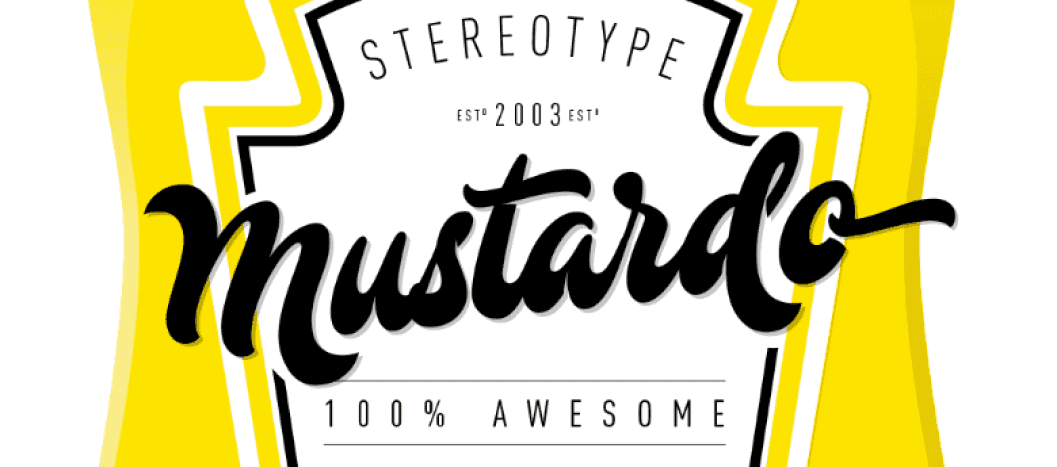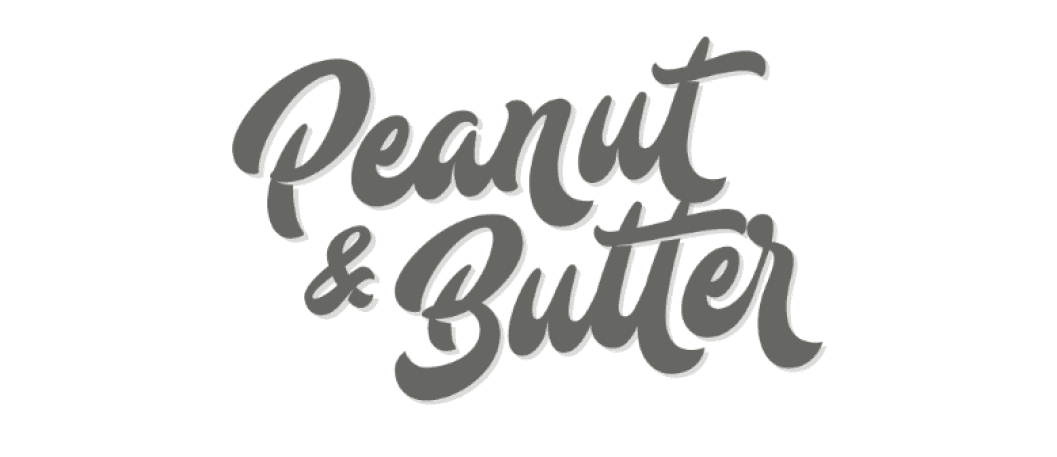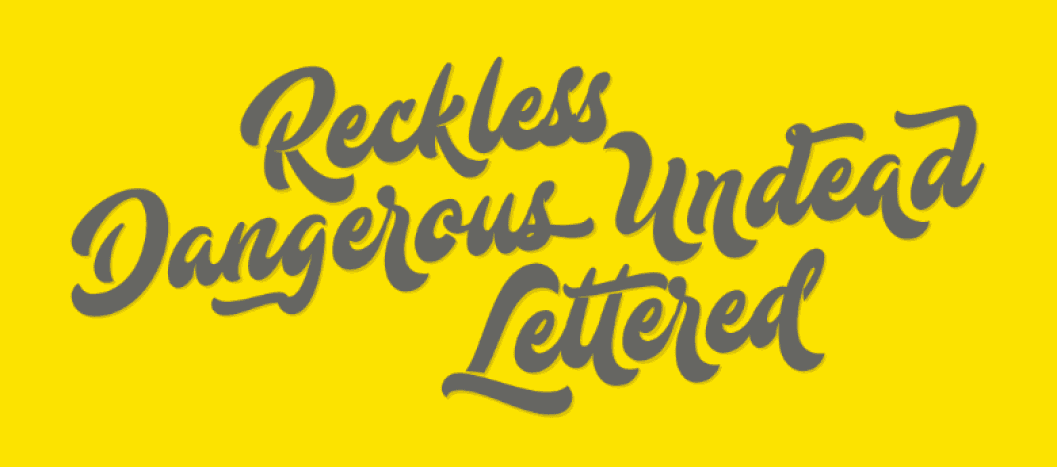
Mustardo a script font of the soft Styled look of the Seventies is common with a set of alternate letters and contextual characters in its commercial version.